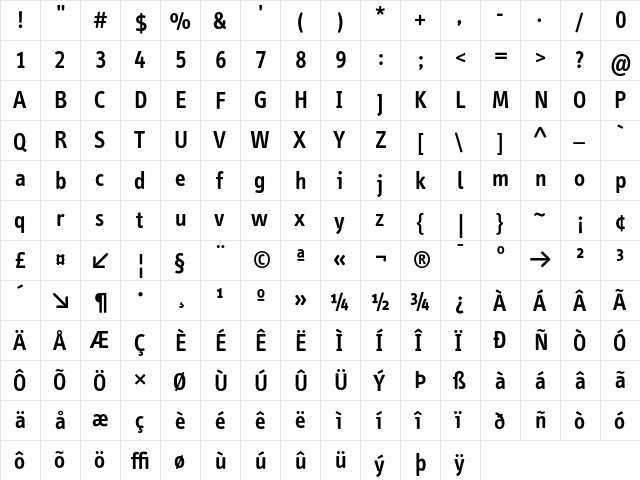
Info SemiBold
Design Context for Info Typeface
Info takes a measured approach to typography — its balanced proportions and neutral character make it a reliable workhorse for both digital and print work. The heavy weight commands attention and anchors typographic hierarchies.
Pro Tip: Use Info in both headline and body roles to test its range before committing to a single application.